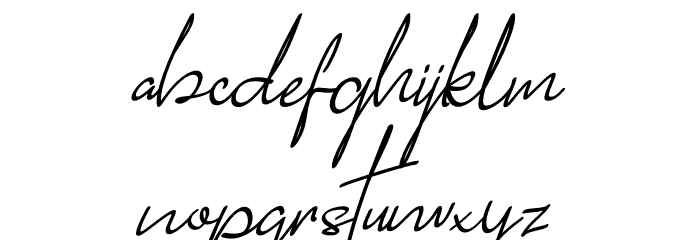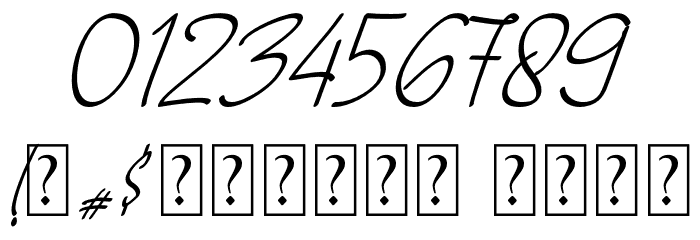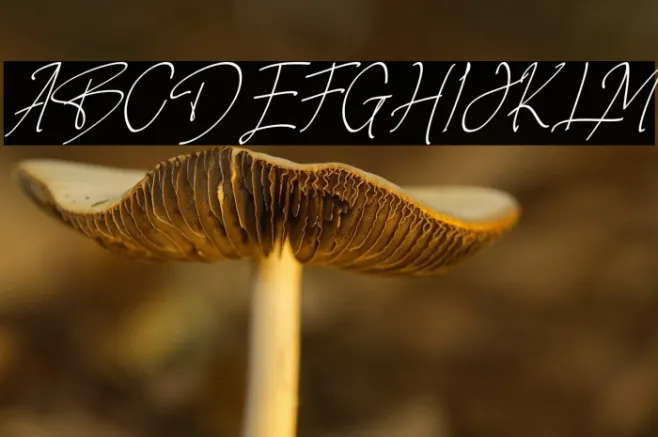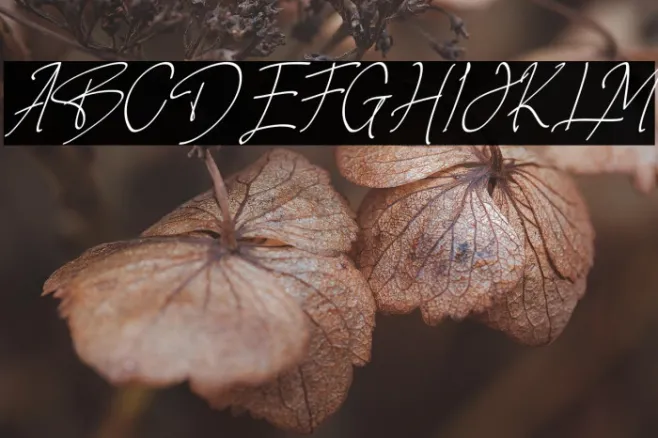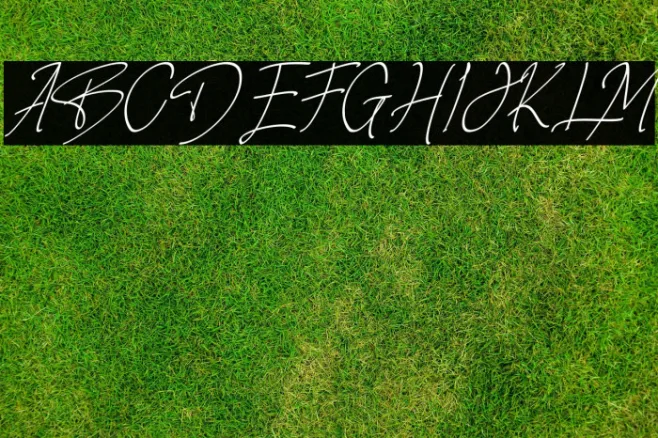
Rotherland Font
This font features an elegant and flowing script style, characterized by its smooth, continuous strokes and a sense of fluidity. The uppercase letters are tall and slightly slanted, giving a sense of movement and grace. The lowercase letters maintain a consistent style with a slight slant, enhancing the cursive feel. Numbers are clear and maintain the same flowing style, ensuring readability while preserving the aesthetic. Special characters are designed to match the overall script style, making them seamlessly integrate with the text. The font's overall appearance is sophisticated and artistic, suitable for projects that require a touch of elegance.
An elegant, flowing script font with smooth, continuous strokes.
- Font: Rotherland
- Proposed Projects: Ideal for wedding invitations, elegant branding, personal signatures, and artistic projects.
- Overall Style: Elegant, Artistic
- Use Case: Invitations, Branding, Signatures